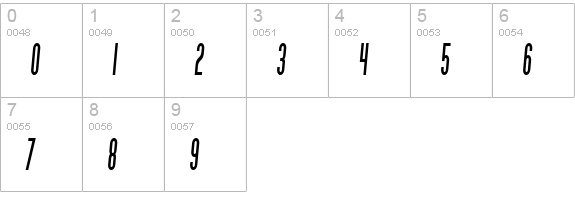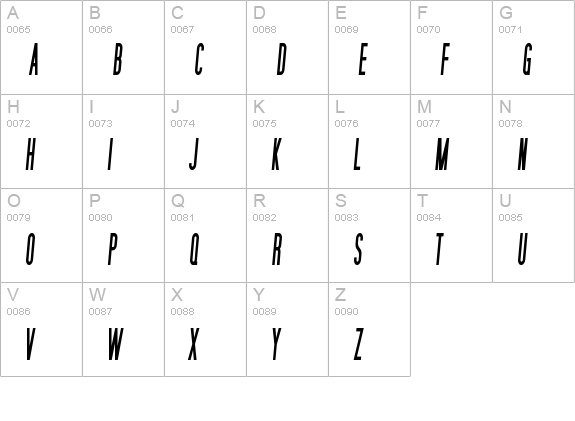
SF Movie Poster Condensed Bold Italic Font Details
SF Movie Poster Condensed Bold Italic is a strong, high-contrast, condensed-width, italic variant in the SF typeface family \xE2\x80\x94 well suited to headlines, attention-grabbing titles, and strong calls-to-action.
Introducing SF Movie Poster Condensed Bold Italic, a font that embodies the perfect blend of sleekness and intensity, designed specifically for the science fiction genre. With its bold and italicized appearance, this typeface exudes a captivating aura that will instantly transport your audience to a futuristic realm. The SF Movie Poster Condensed Bold Italic font is meticulously crafted to capture the essence of high-octane action and thrilling adventures found in the world of sci-fi films. Its condensed form allows for efficient use of space while maintaining maximum impact, making it an ideal choice for movie posters, book covers, and promotional materials. What sets SF Movie Poster Condensed Bold Italic apart is not only its striking design but also the fact that it is freely available for download at FontsMarket.com. This means that you can easily access this incredible font and bring your sci-fi creations to life without any hassle. Whether you're a professional designer or an enthusiast, this font is the perfect tool to enhance your projects and captivate your audience. With SF Movie Poster Condensed Bold Italic, the possibilities are endless. Create dynamic and visually stunning designs that push the boundaries of imagination, and let your creativity soar to new heights. So why wait? Unlock the power of this remarkable font and embark on an epic journey of design excellence today. Download SF Movie Poster Condensed Bold Italic for free at FontsMarket.com and let your sci-fi visions become a reality.